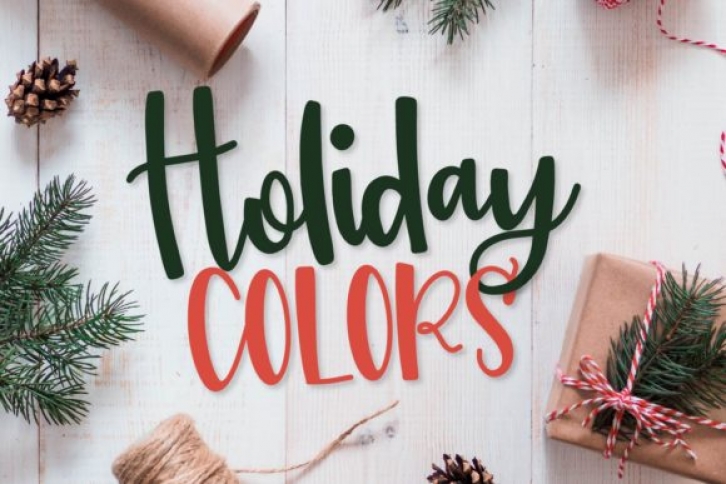
Holiday Colors is a crafter’s dream font: sweet, charming and incredibly lovely. It’s the ideal typeface for turning any crafting idea into a piece of art!